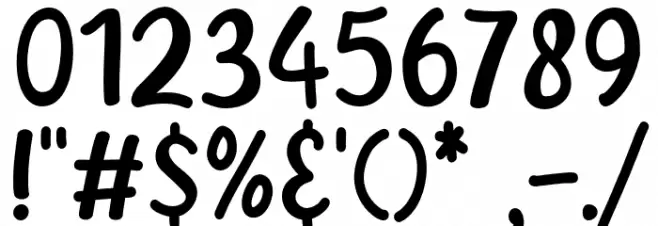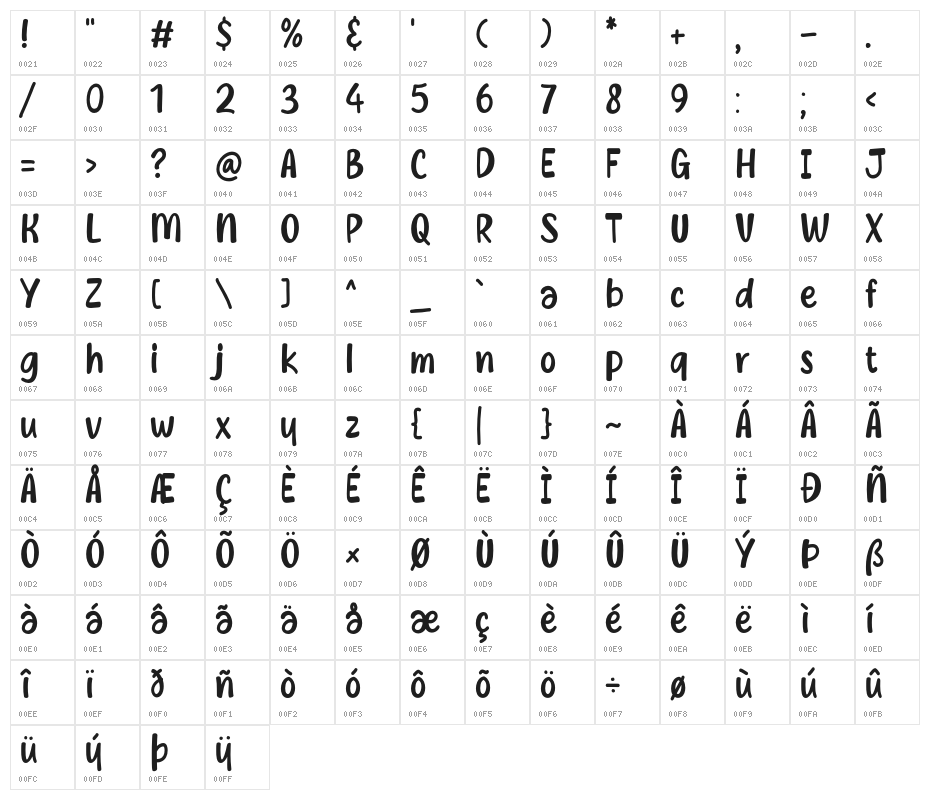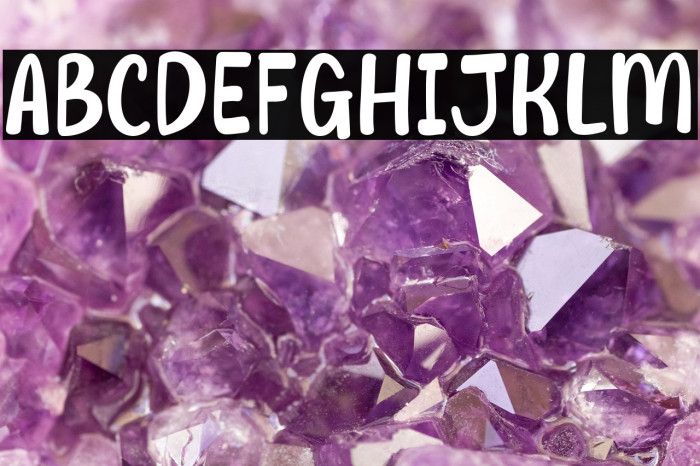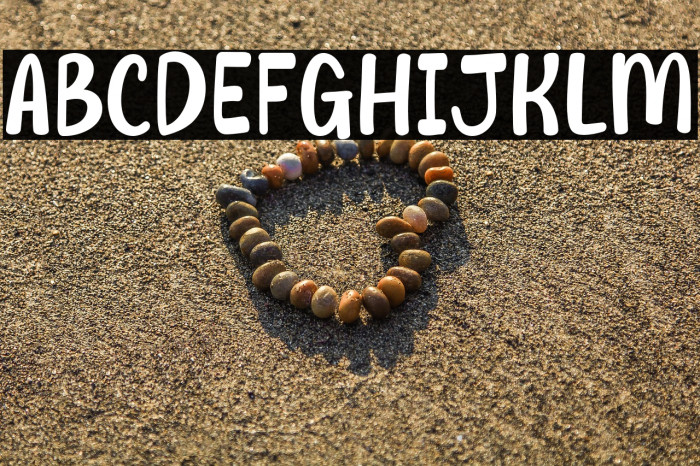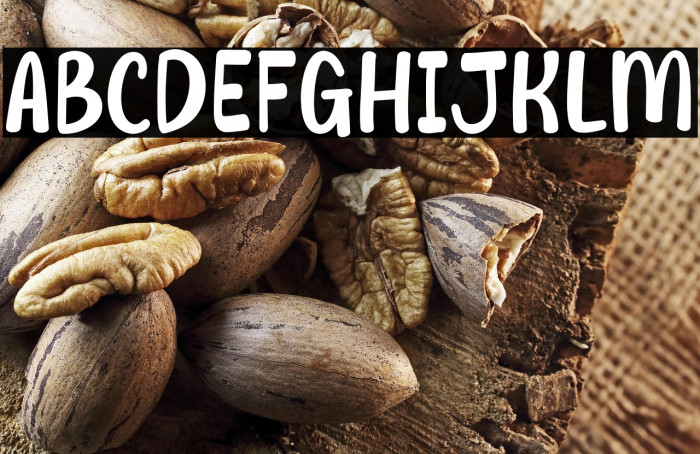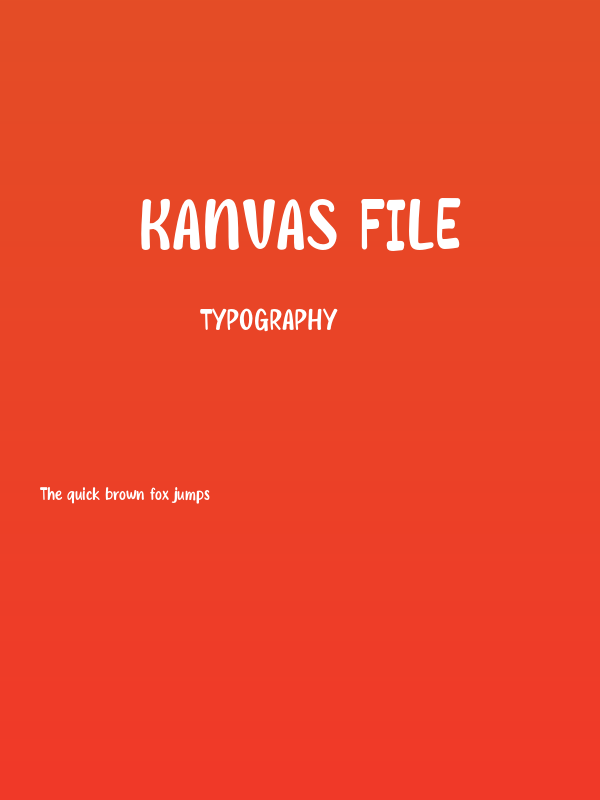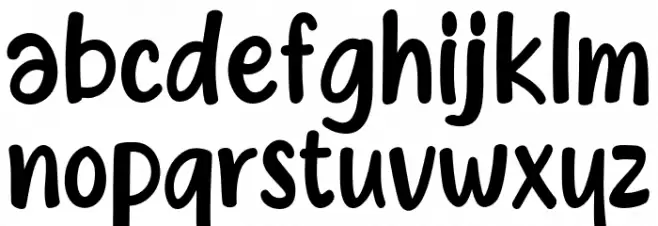
Kanvas file Font
Kanvas file Description
This font features a playful and rounded style, characterized by its bold and smooth curves. The letters have a hand-drawn appearance, giving them a casual and friendly vibe. The uppercase and lowercase letters maintain a consistent style, with slightly exaggerated curves that enhance their whimsical nature. The numbers and special characters follow the same design principles, ensuring uniformity across the font. The overall look is approachable and informal, making it suitable for projects that require a touch of personality and warmth.
| Proposed Projects | Ideal for children's books, greeting cards, playful branding, and informal invitations. |